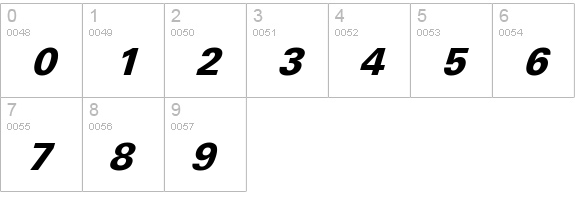
Introducing Unique BOLDITALIC font, a striking and distinctive typeface that effortlessly combines boldness and elegance. With its bold strokes and italicized characters, this font is designed to make a statement and captivate the attention of any reader. This meticulously crafted font boasts a unique blend of modern sophistication and timeless charm. Its detailed curves and graceful slants create a visually stunning appearance, while maintaining legibility and readability across various design projects. Whether you're designing a logo, crafting a headline, or creating eye-catching social media graphics, Unique BOLDITALIC font will elevate your work to new heights. Its versatility allows it to be seamlessly incorporated into a wide range of creative endeavors, from fashion and beauty branding to editorial layouts and advertisements. What sets Unique BOLDITALIC font apart is not only its stunning aesthetics, but also its accessibility. We believe that design should be accessible to all, which is why this font is freely available to download at FontsMarket.com. Now, you can effortlessly infuse your designs with the bold and italic flair that Unique BOLDITALIC font offers, without any financial constraints. Unlock the potential of your designs with the captivating presence of Unique BOLDITALIC font. Embrace its boldness, embrace its elegance, and let your creativity soar. Download this one-of-a-kind font today, and embark on a design journey that is truly extraordinary.